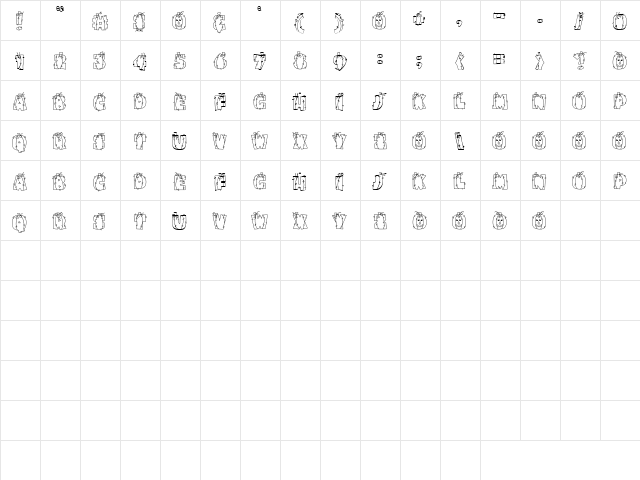
CK Pumpkin Regular
Design Context for CK Pumpkin Typeface
CK Pumpkin is a composed and adaptable typeface that performs quietly and consistently across a wide range of design contexts.